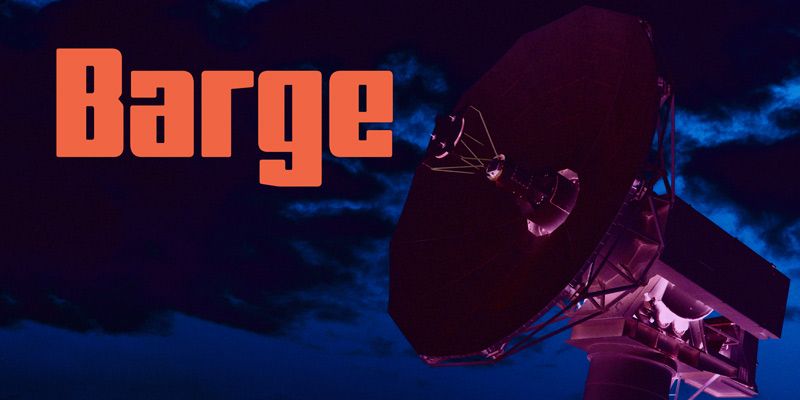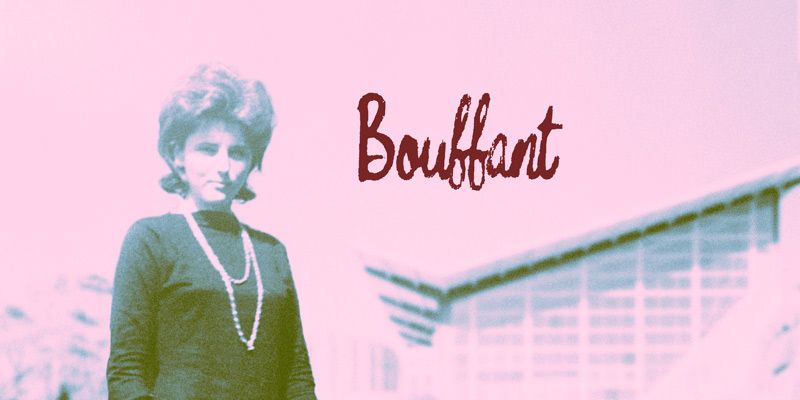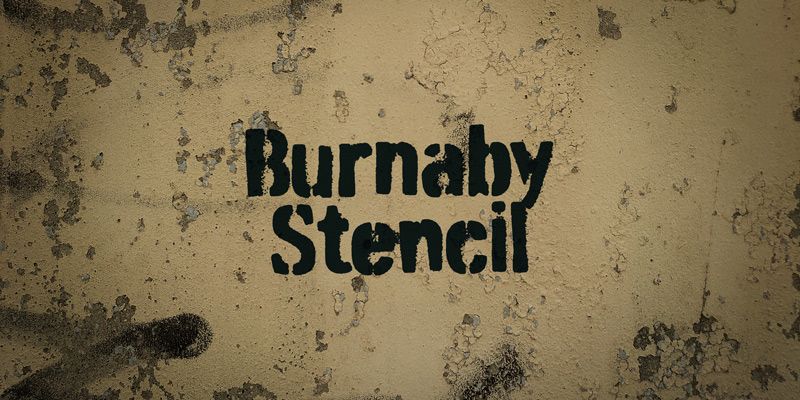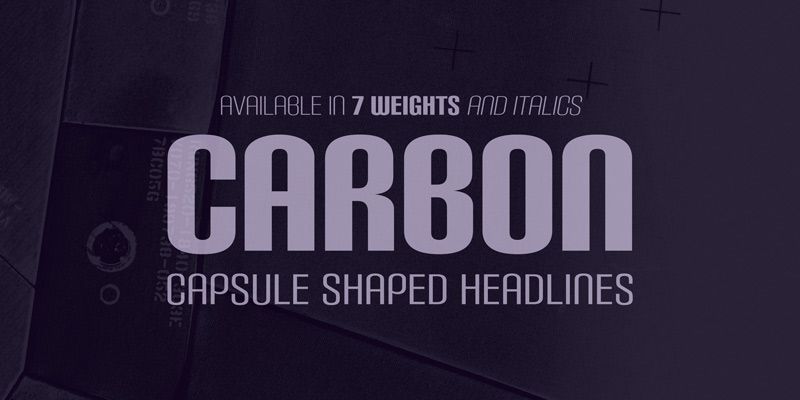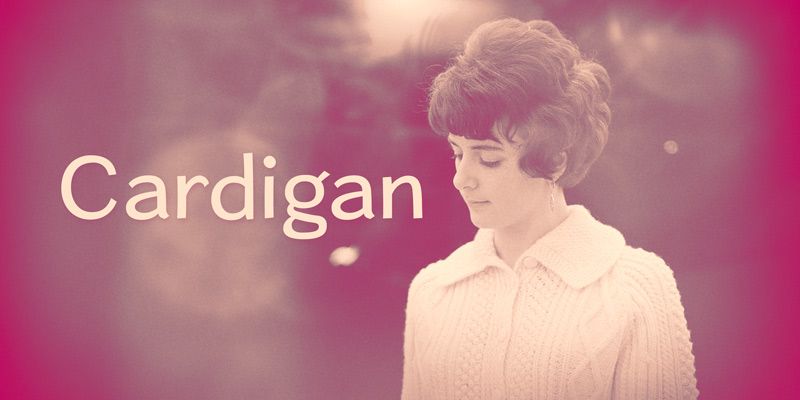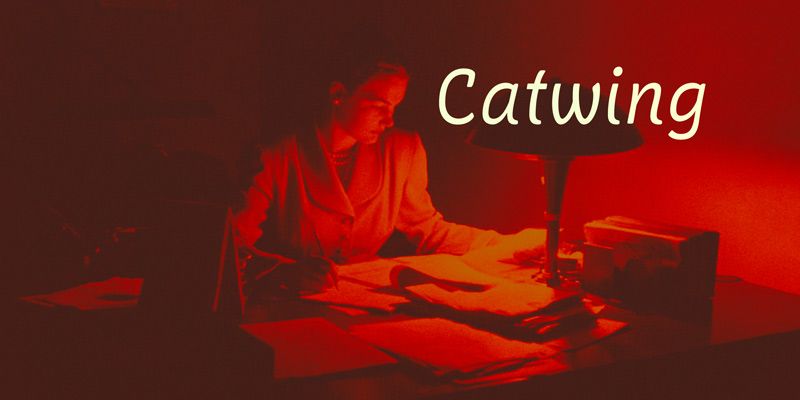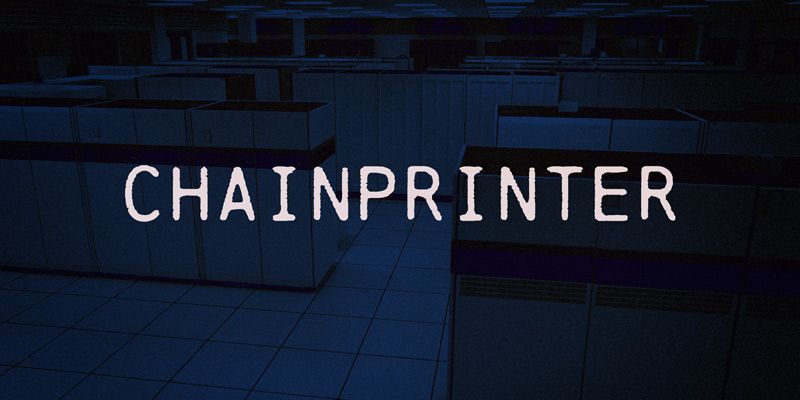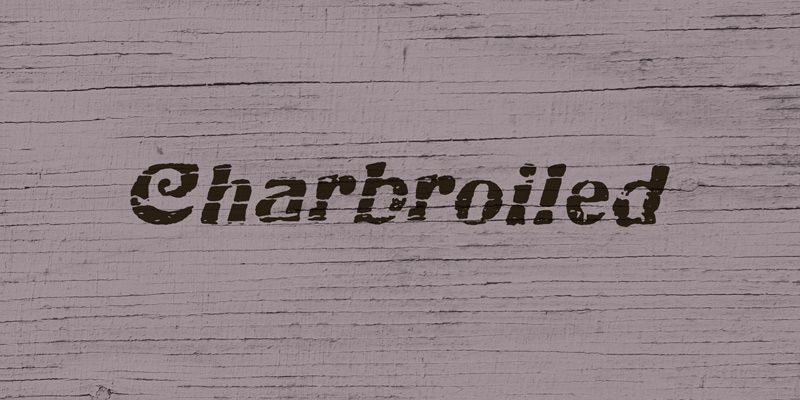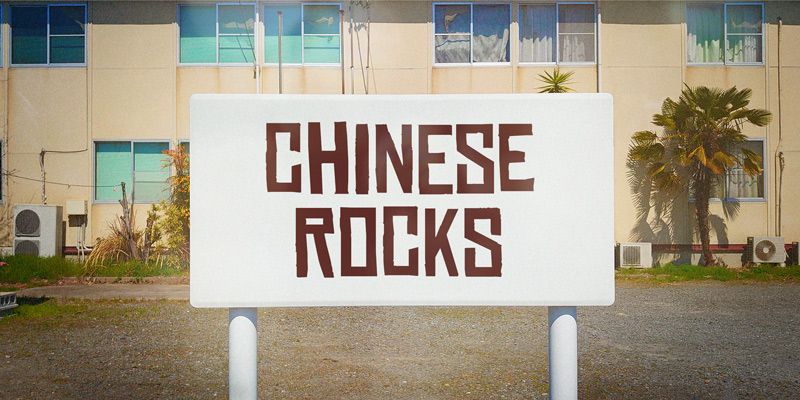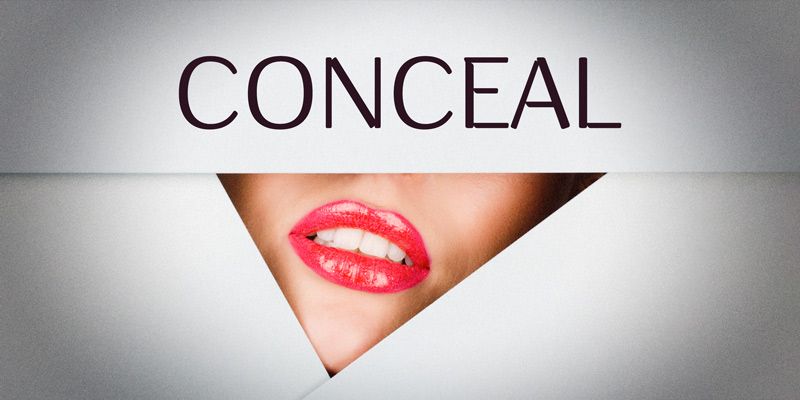
Barge is massive and compact. Bold, non-retro monoliths with smooth chamfers deliver bunches of punches.
Bouffant is a 1950s style script with a vintage t-shirt texture.
Burnaby Stencil is an oversprayed headline typeface. In OpenType savvy applications, custom letter pairs are automatically substituted for a more natural looking effect.
Carbon was originally created in 1999 and has been overhauled a decade later. Some of the numerals and most of the punctuation has been redesigned. Accents cover more languages. Along with new weights and italics, there’s Carbon Fence with a 1960s style choppy wire fence effect. Carbon now includes fractions & numeric ordinals.
Cardigan is casual sans-serif typeface. While the line treatment is nonchalant, letterforms are clear & conventional making it one of those rare casual typefaces that perform well in bodies of text.
Although Catwing has a typewritten feel, it’s actually proportionally spaced. Unlike most scripts, you're encouraged to break the rules and type in CAPITALS.
What happens when computer printer marries a chainsaw & a player piano? A zippy fast machine from the 1960s called a chain printer. Recreate the effect of this speedy mechanical marvel of yesteryear.
Charbroiled is a charred, antiqued font based on American Italic from 1902. In OpenType savvy applications, letter pair ligatures help break up the monotony of obviously repeating letters.
A typeface was inspired by hand cut rubber stamp lettering on imported merchandise containers.
Conceal is a display, headline typeface with neat “kissing” lipstick strokes.
Coolvetica recreates a 1970s custom display lettering look with really tight kerning and funky curls.
Cotton is a mid-twentieth century style casual sans with a vintage t-shirt texture. In OpenType savvy applications, letter pair ligatures help break up the monotony of obviously repeating letters.
DDT is a subtly superelliptical, neutral-sans font family. It was inspired by Eurostile/Microgramma but was designed to be less square and more readable in text blocks.
Dirtstorm is a lightly spraypainted stencil font. In OpenType savvy applications, letter pair ligatures help break up the monotony of obviously repeating letters.
Dirty Baker's Dozen is a raunchy headline typeface made using a worn out stencil.
Divulge is a modern grotesque that takes inspiration from nineteenth and early twentieth-century sans-serif metal type. Its austere, nuanced voice feels old-fashioned while not overdoing the pastiche.
Domyouji was designed as a high-tech body copy companion to Korataki. With a nod to Handel Gothic, Domyouji brings the square-sans into the 21st Century.
Duality is a rugged, condensed display typeface with class based kerning, math symbols, fractions and numeric ordinals.
Outstretched pod forms suggest rapid horizontal movement. Sharp diagonal cuts and anomalistic gaps inject your words with nontraditional, scientific sensibility.
Expressway is a sans-serif typeface inspired by the U.S. Department of Transportation’s FHWA Series of Standard Alphabets, also known as Highway Gothic.
Fenwick is a grotesque, metal type with unusual proportions in the style of hand painted signs circa 1900.
Flyswim is a pencil-drawn, lightly erased typeface based on Gnuolane.
Forgotten Futurist is a serious, sleek futurefont. The letterforms were derived from 1960s American car advertising but with a 1940s industrial twist.
Fragile Bombers is a sharp, militaristic display font with a sly robotic balance. It's modular but not too modular.